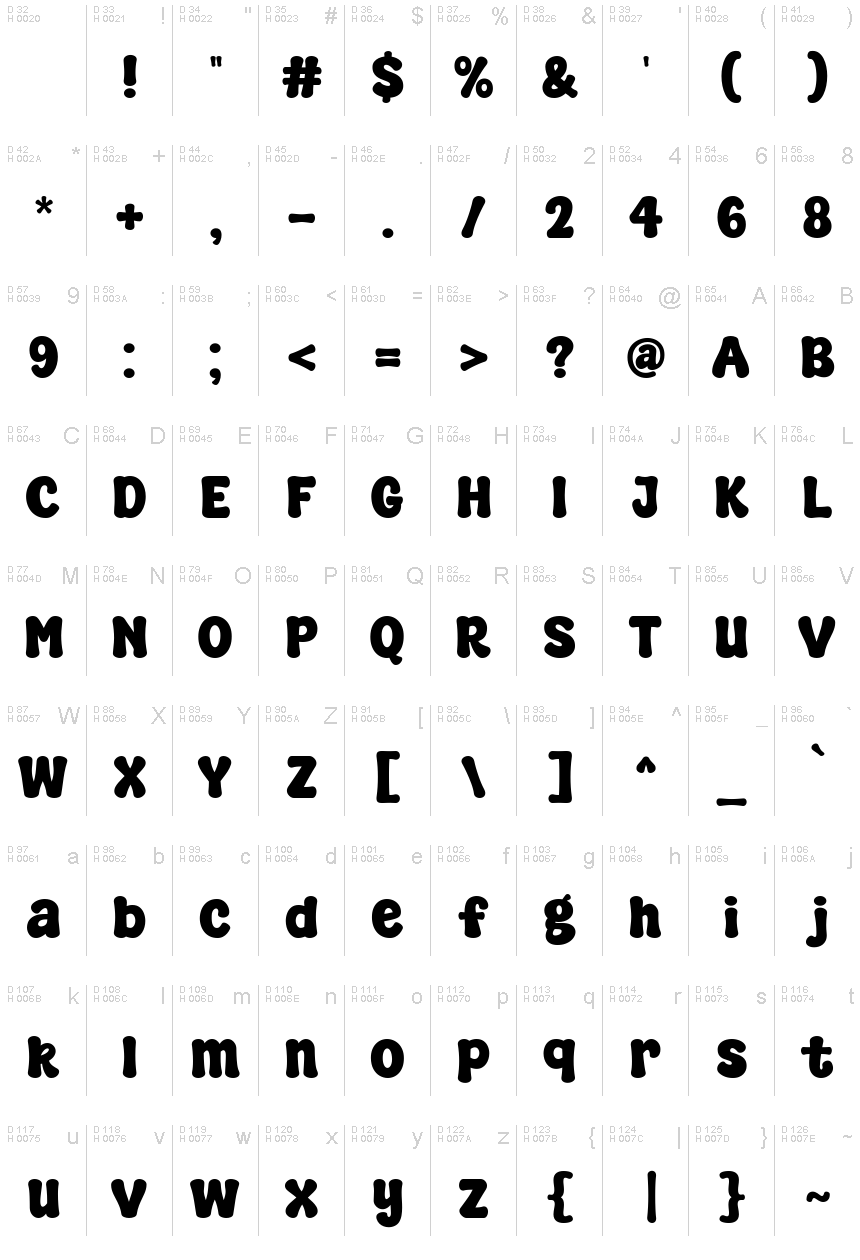
Super Creamy
Super Creamy, a captivating font created by designer fsuarez913, exudes a delightful charm that captivates the senses. Its playful, round letters are enhanced by a groovy, hand-drawn twist, blending bold and fancy elements into a cohesive and visually striking design.
This font's unique characteristics make it a versatile choice for a wide range of design applications. Its playful and whimsical aesthetic lends itself well to branding, packaging, and promotional materials, where a touch of playfulness and creativity can elevate the overall design. Additionally, Super Creamy's bold and expressive nature makes it an excellent selection for headlines, logotypes, and display text, adding a touch of personality and flair to any creative project.